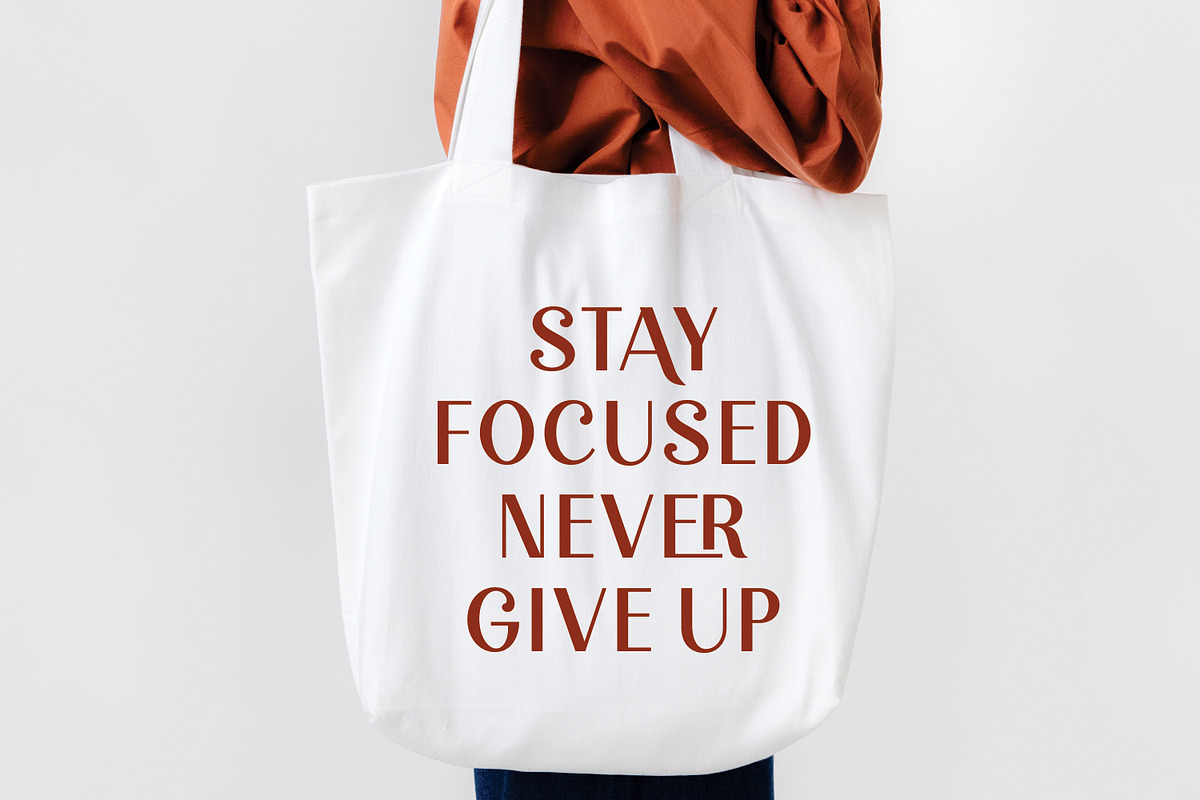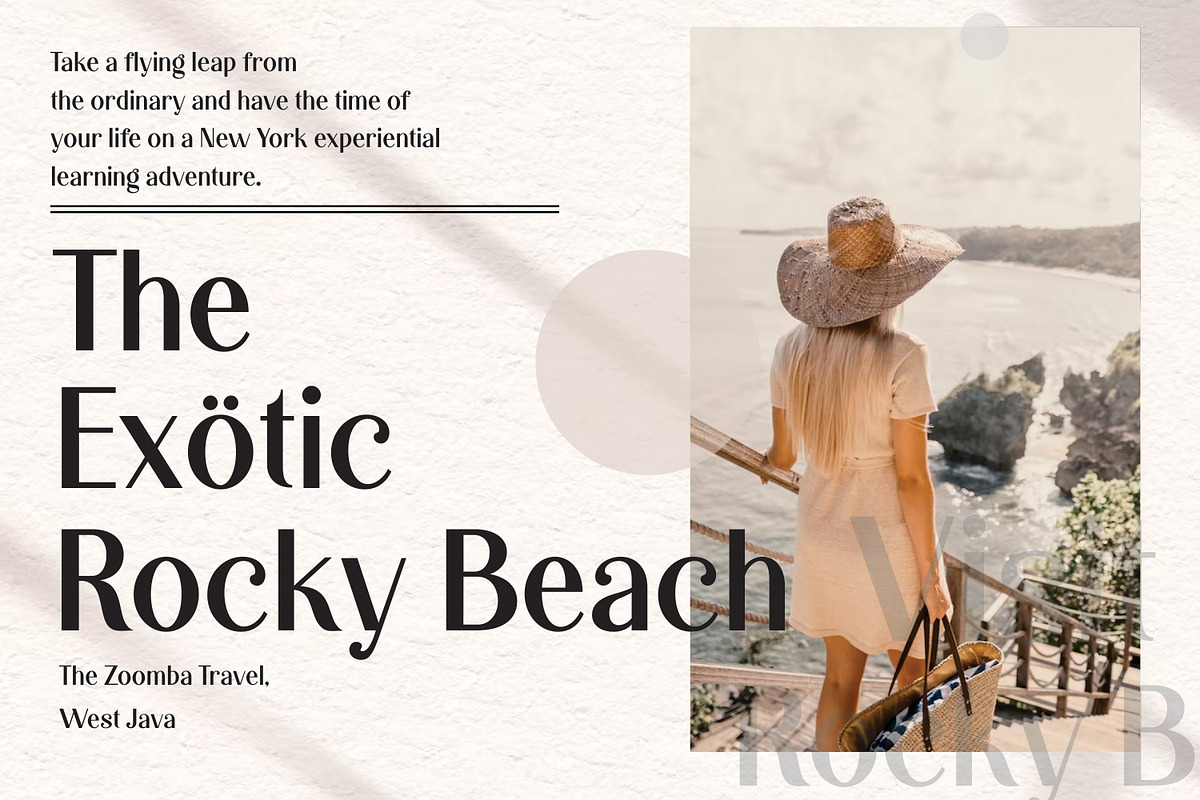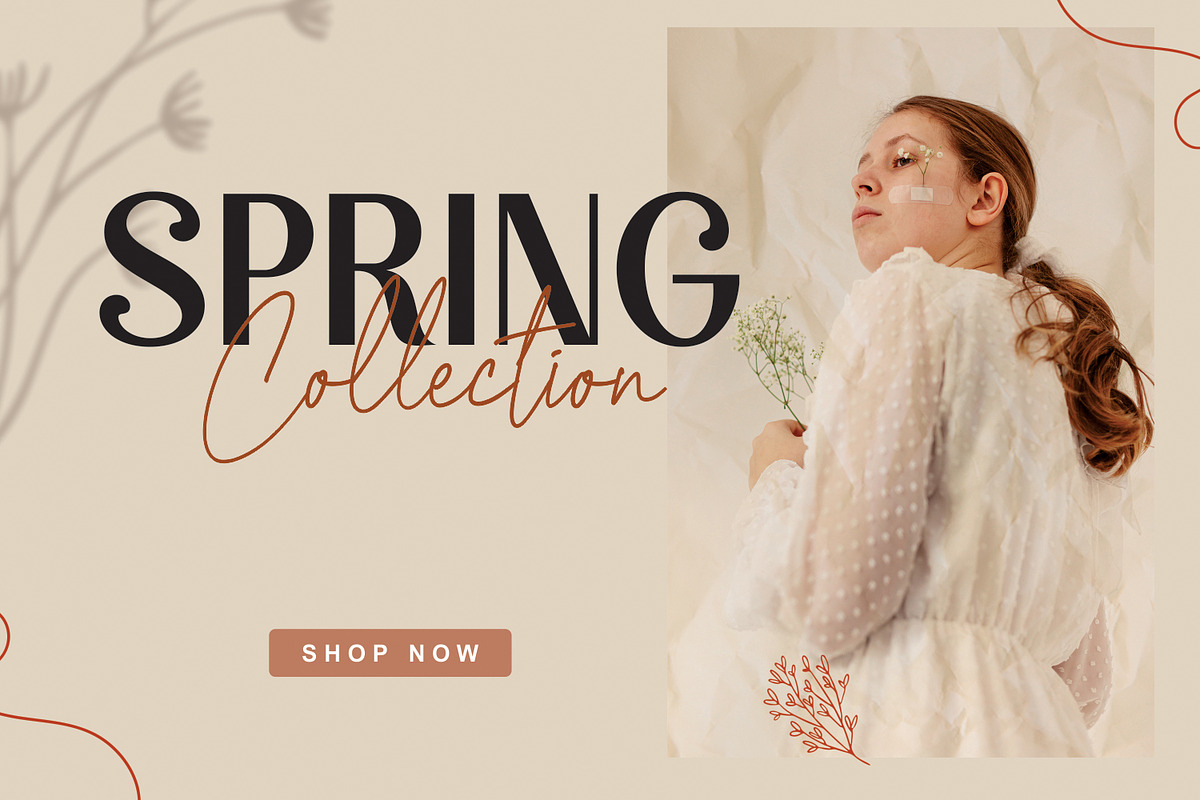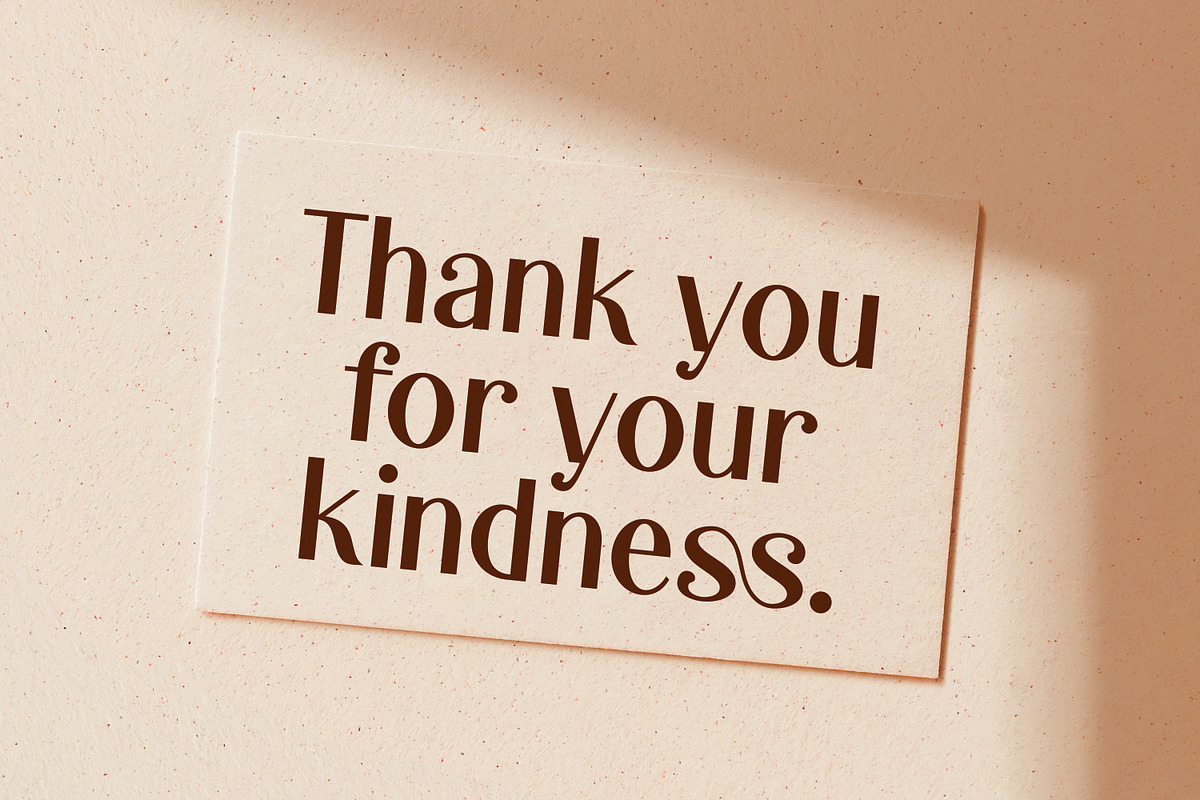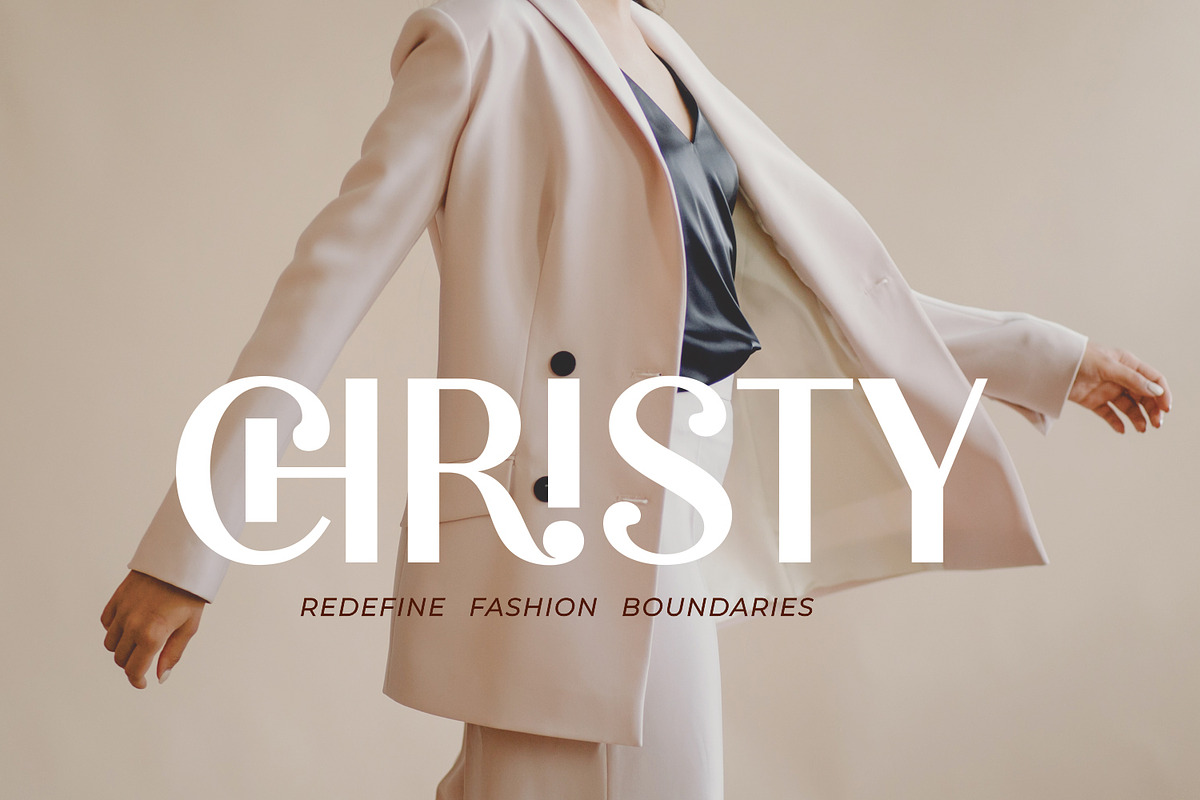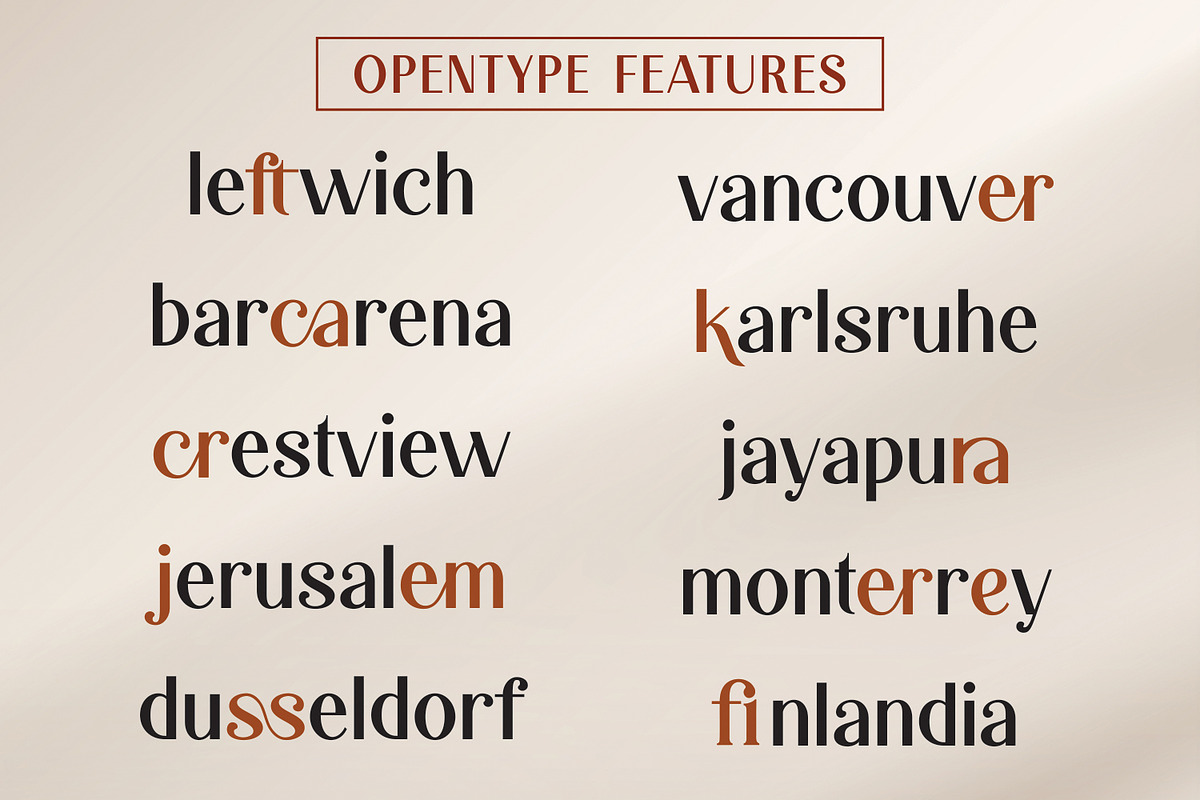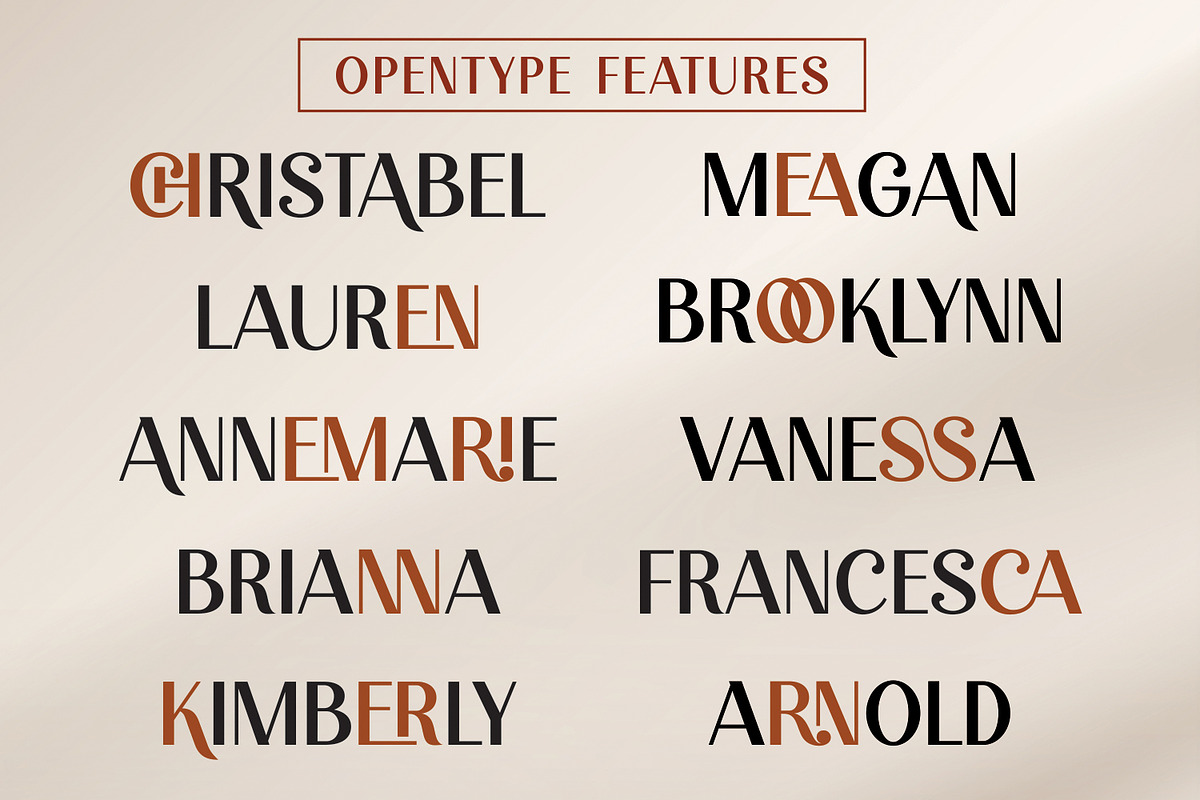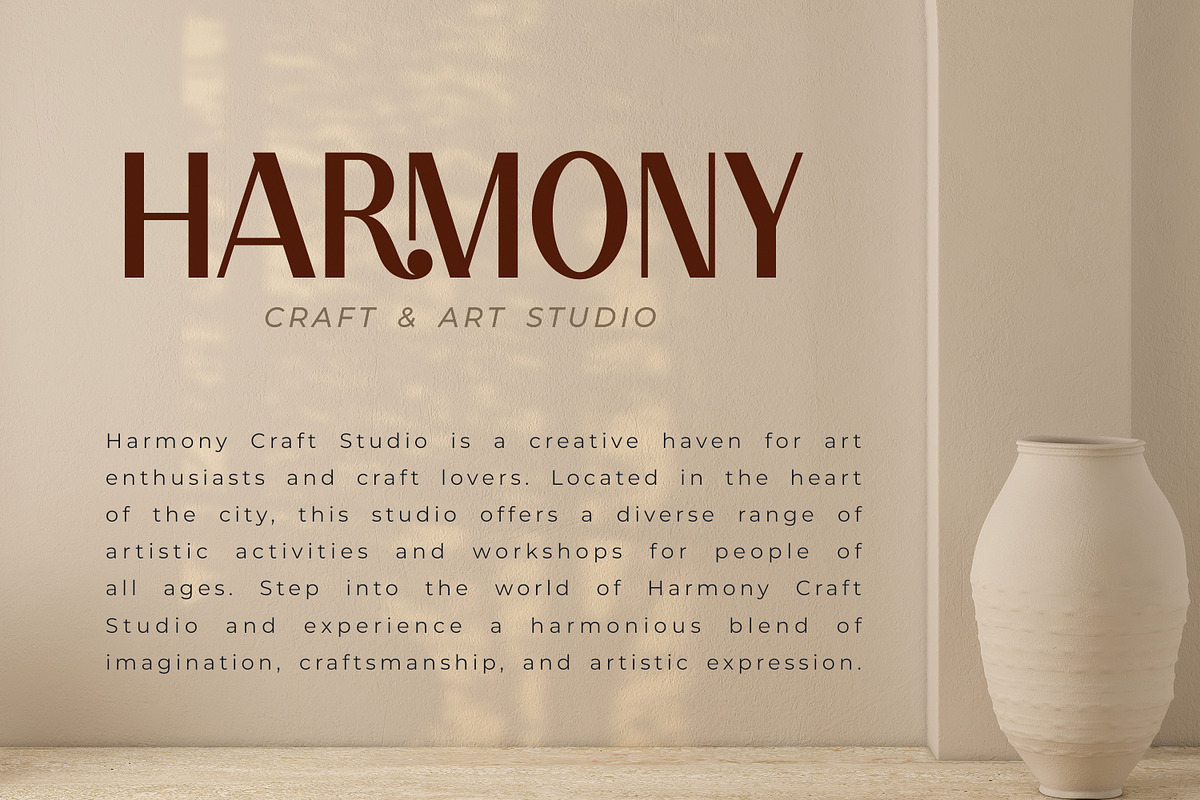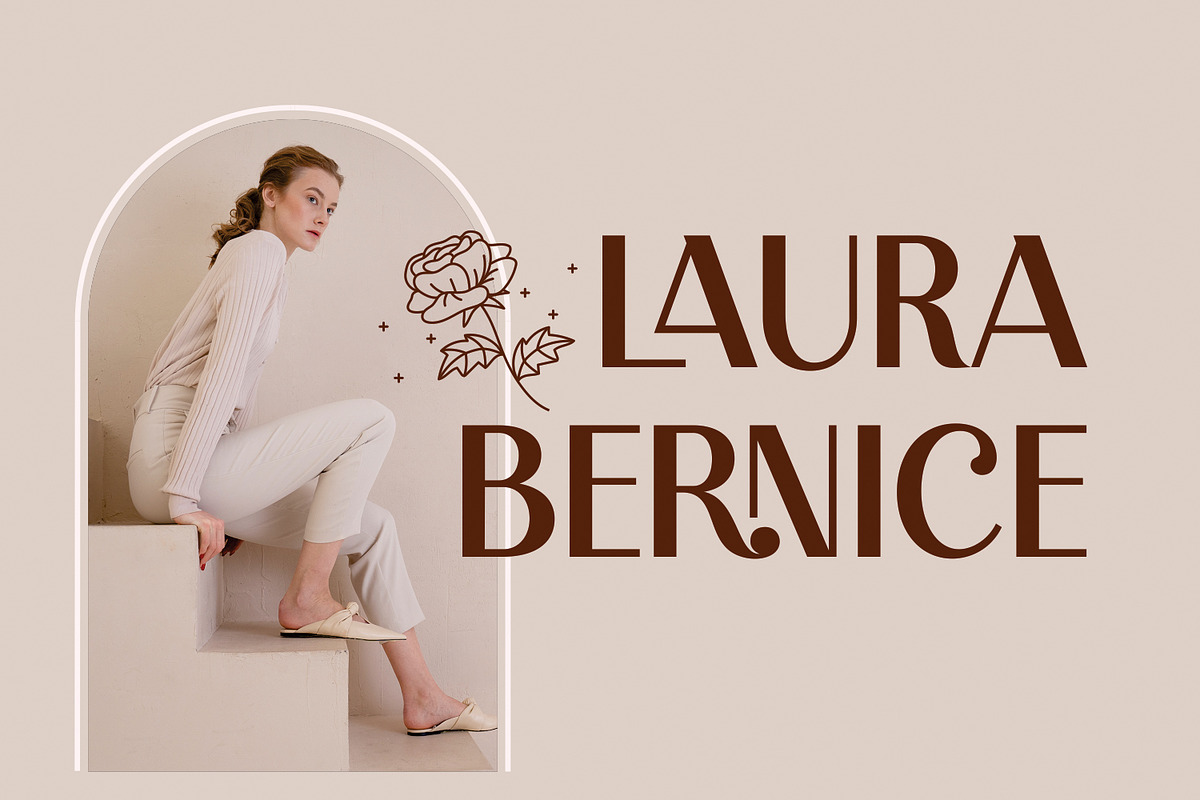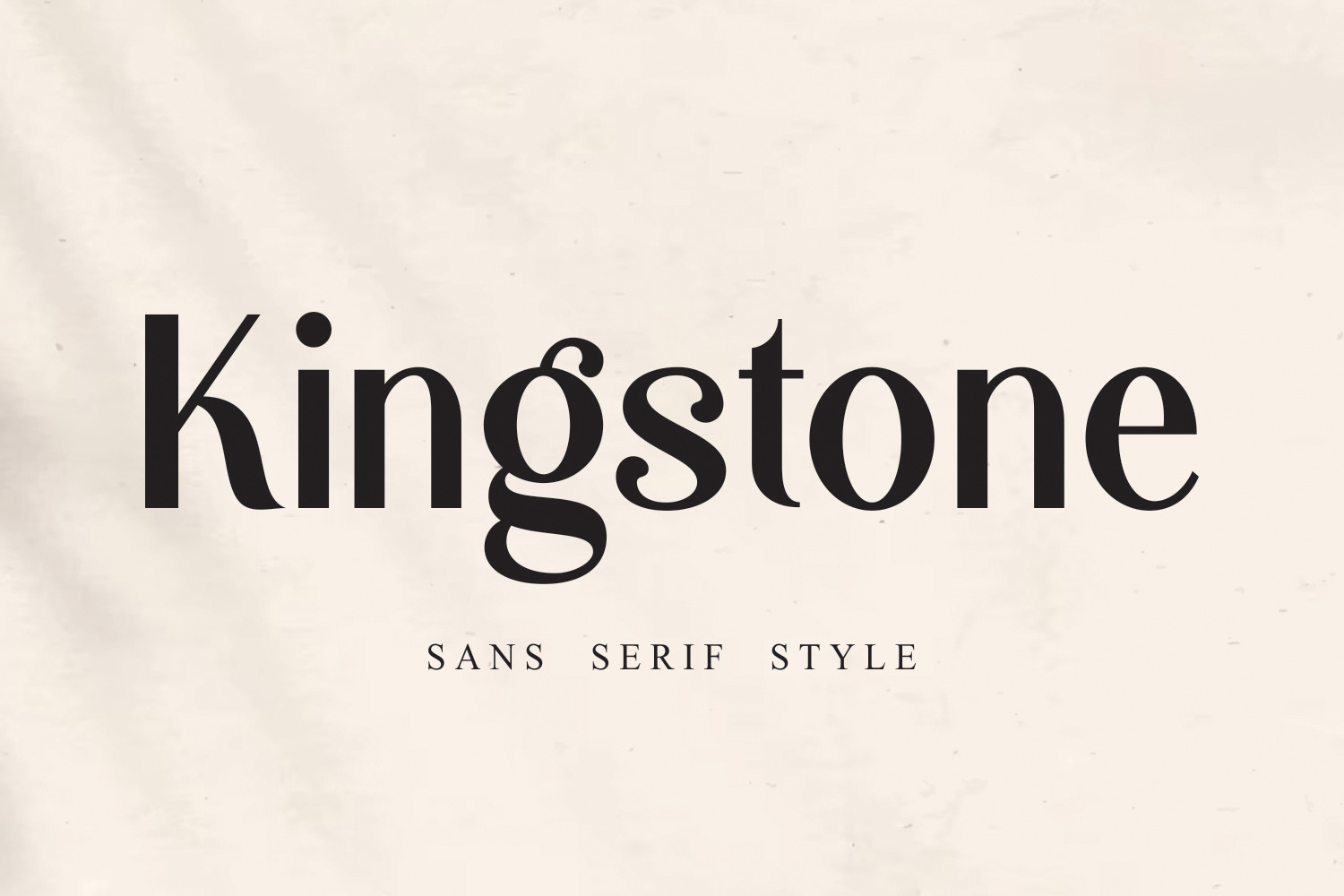
Kingstone - Sans Font
Introducing the majestic "Kingstone Sans" a typeface that exudes power, elegance, and timeless appeal. With its commanding presence and exquisite details, this font is designed to make a bold statement in your designs.
Let the "Kingstone Sans " reign over your projects and elevate them to new heights of sophistication. Its sturdy serifs and balanced letterforms exude a sense of authority, making it ideal for prestigious branding, editorial designs, and luxury packaging. Each character is meticulously crafted to convey a sense of grandeur and refinement.
Impress your audience and captivate their attention with the regal allure of "Kingstone Sans ". Whether you're designing logos, headlines, or promotional materials, this font will command attention and leave a lasting impression.